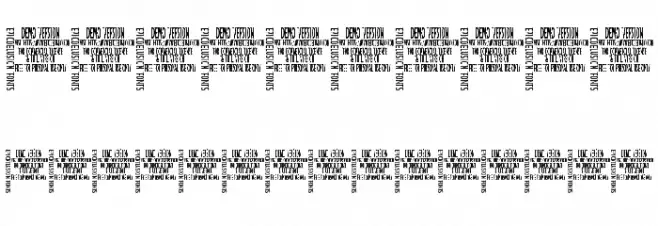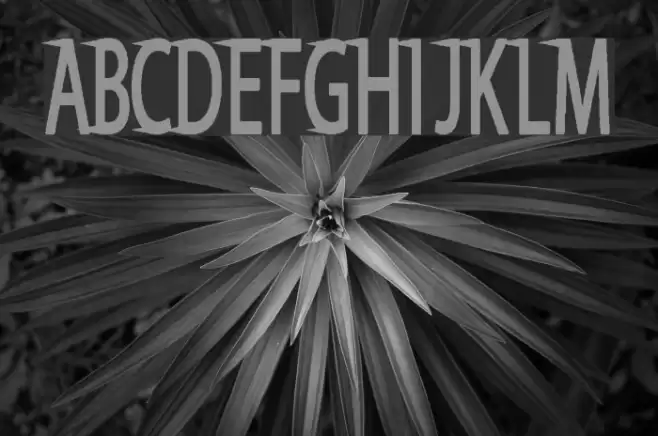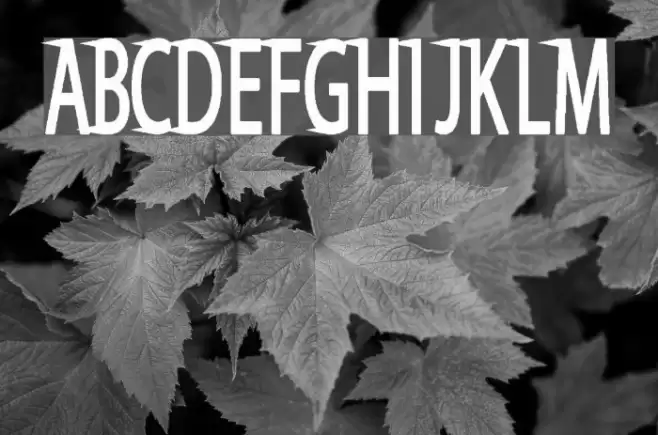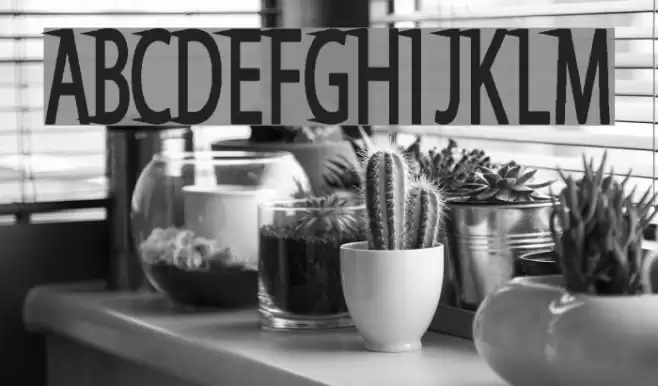
Say Divine Font
Say Divine Description
This font features a bold and striking design with sharp, angular serifs that give it a distinctive and edgy appearance. The uppercase letters are tall and commanding, while the lowercase letters maintain a consistent style that complements the uppercase. The numbers and special characters are crafted with the same attention to detail, ensuring a cohesive look across all text. The font's unique style makes it ideal for projects that require a strong visual impact, such as headlines, posters, and branding materials. Its boldness and angularity convey a sense of modernity and confidence.
| Use Case | Headlines, Posters, Branding |
| Proposed Projects | Ideal for headlines, posters, branding, and any project needing a strong visual impact. |